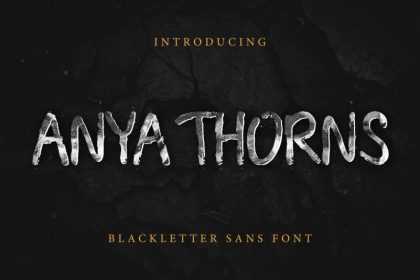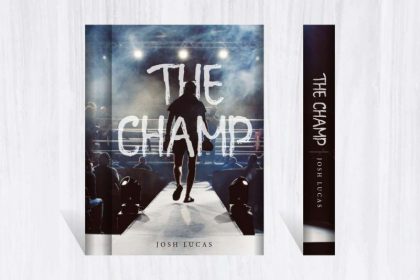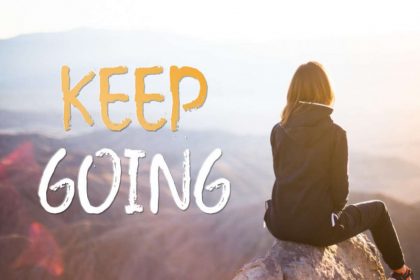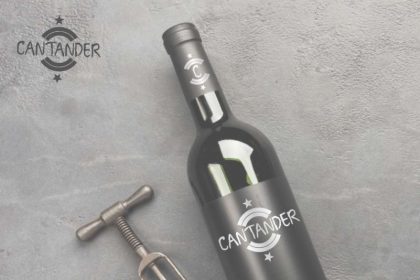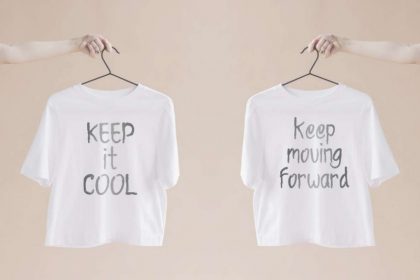
Anya Thorns Grunge Font
Presenting to you : Anya Thorns Grunge Font This is a display font with Handwritten Grunge style. This typeface was handcrafted by two typeface artists : Ali and Suci. Made in Garut – West Java, Indonesia.
Anya Thorns Grunge Font has an exclusive style, so you can use it on many projects and explore further more. If you get an extended, this font will suit many projects categories and you can create as many as possible : Logo type, flyer, stationery, banner, signage, flyer, brochure, cover etc. It will be great for professionals like : designer, artist, musician, fashion, blogger, chef, architect, florist etc. There’s no borderies of your creativity using this font.